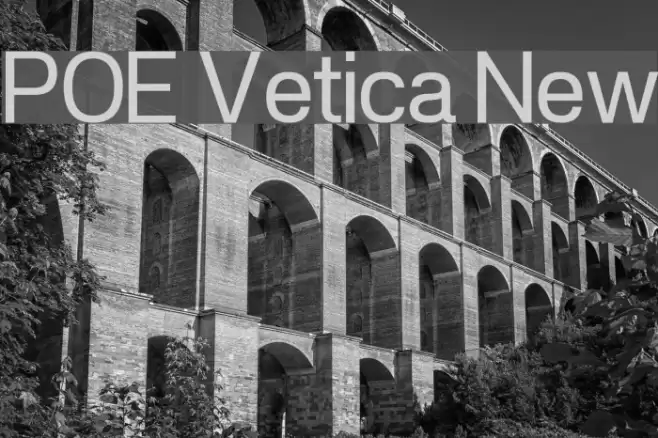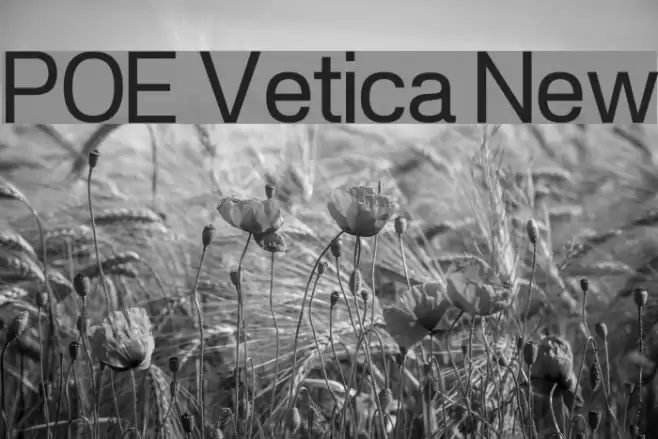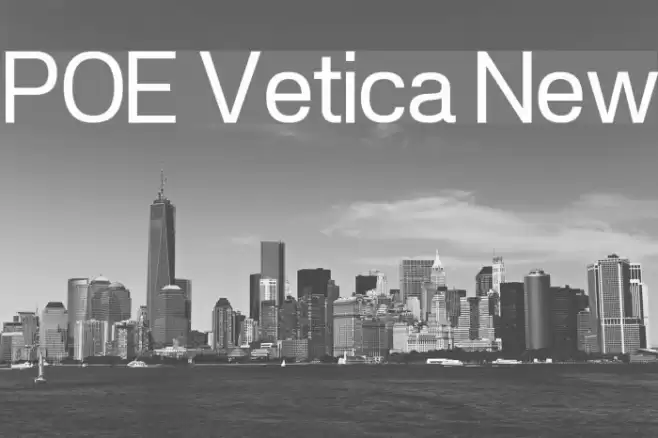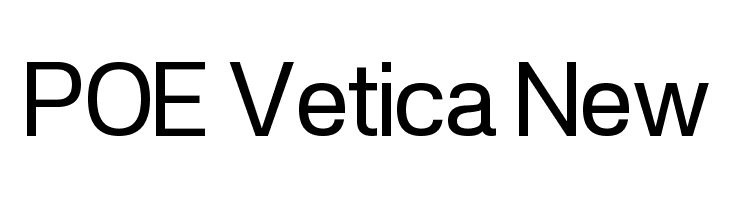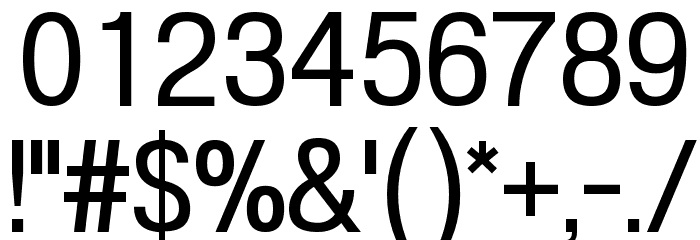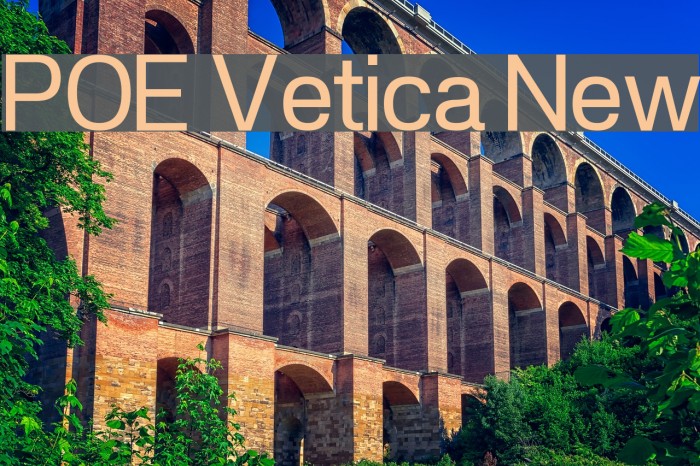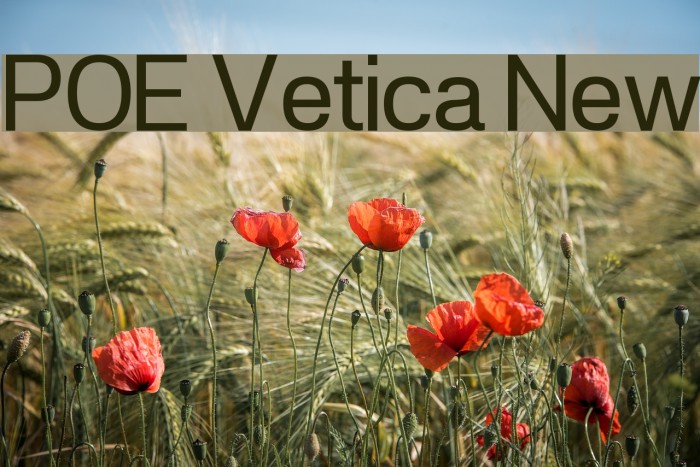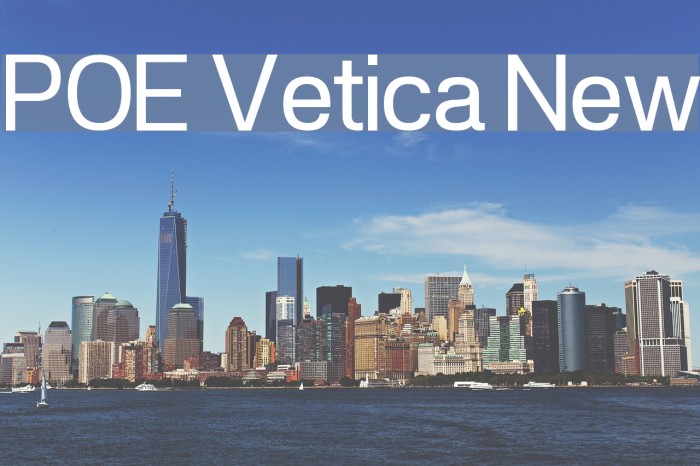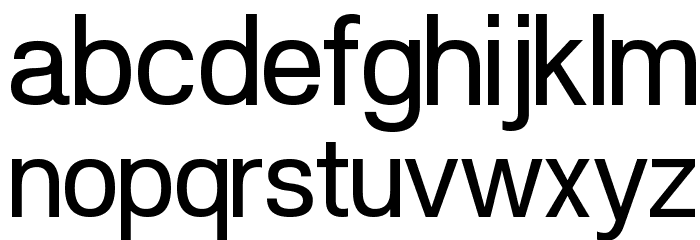
POE Vetica New Font
POE Vetica New Description
This font features a clean and modern sans-serif style, characterized by its geometric shapes and uniform stroke widths. The uppercase letters are bold and assertive, while the lowercase letters maintain a consistent and harmonious appearance. The numerals are clear and easily distinguishable, making them suitable for various applications. Special characters are well-defined, adding to the font's versatility. Its simplicity and clarity make it ideal for both digital and print media.
A modern sans-serif font with geometric shapes and uniform strokes from Uncategorized fonts.